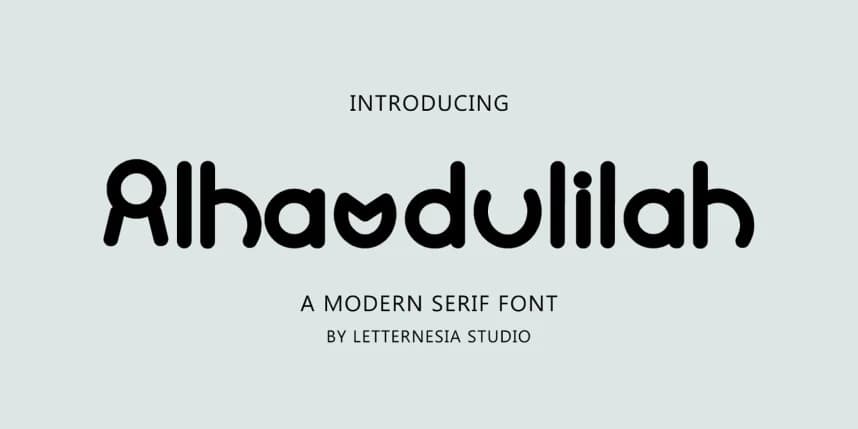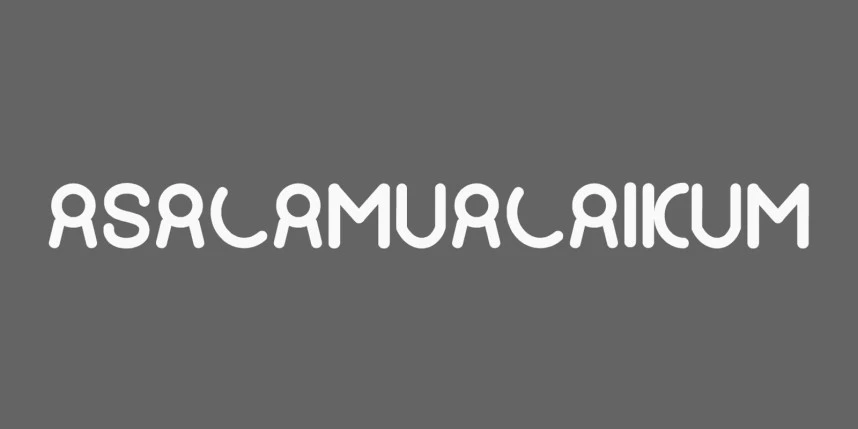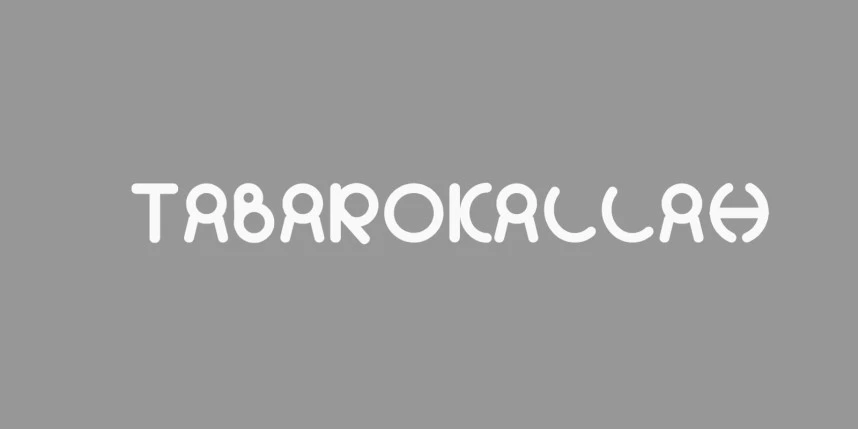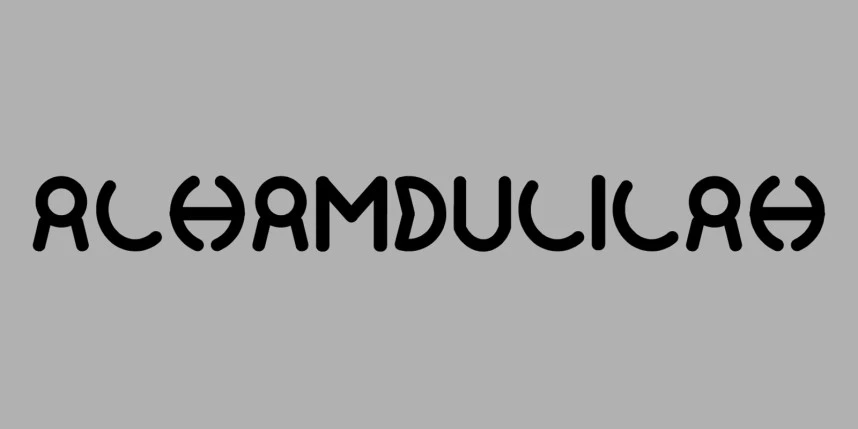
Alhamdulilah Display Font
Alhamdulilah Display Font is a font inspired by the beauty of Arabic script and the elegance of Islamic calligraphy. Designed with soft lines and graceful curves, this font brings a spiritual and refined touch to every character.